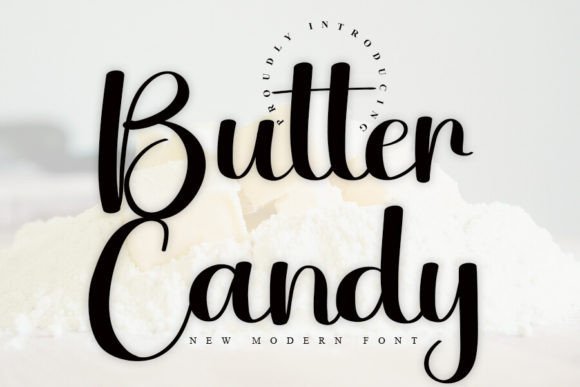
Discover the Sweet Allure of Butter Candy Font
Have you ever found yourself scribbling down ideas in the middle of a brainstorming session, and suddenly, the perfect phrase jumps out at you? That’s exactly what happened to us when we stumbled upon the Butter Candy Font. Its elegant curves and fluid lines made us swoon, and we just knew we had to share it with the world.
Butter Candy Font is a stunning, modern calligraphic font that’s perfect for adding a touch of sophistication to your designs. Whether you’re working on a branding project, creating wedding invitations, or crafting web graphics, this font will elevate your compositions to the next level. With its beautiful rhythm, you’ll be able to create gorgeous and classy designs that are sure to impress.
Key Features of “Butter Candy Font”
- Unique Characteristics: Features a unique blend of playful and elegant styles, perfect for creative and modern designs
Butter Candy Font Review
At first glance, Butter Candy Font seems like a whimsical and fun addition to any design project. ✨ The playful, handwritten feel of this font is perfect for creating a lighthearted atmosphere in branding, marketing materials, or even digital interfaces. I appreciate the way the font’s irregularities add a touch of personality to any text.
- Works well for: brand logos, packaging, social media graphics, and other design elements where a playful, handwritten feel is desired.
- ✨ The font’s unique characteristics make it stand out in a crowded market of similar fonts.
However, there are some limitations to consider. ⚠️ The font’s irregularities can also make it challenging to read, especially at smaller font sizes. Additionally, the font’s limited character set may require some additional design work to accommodate all necessary characters and symbols.
Overall, I think Butter Candy Font is a great choice for designers looking to add some whimsy and personality to their projects. While it may not be suitable for all types of projects, its unique charm and character make it a valuable addition to any design toolkit.
Butter Candy Font: A Practical Application Guide
Tips for Getting the Most Out of Butter Candy Font
Common Use Cases for Butter Candy Font
Alternatives to Butter Candy Font
Great Vibes Font is a beautiful, handwritten script font perfect for creating whimsical and elegant designs. It features a mix of cursive and calligraphic elements, making it ideal for use in wedding invitations, greeting cards, and other special occasion designs. Great Vibes Font is a more formal and sophisticated alternative to Butter Candy Font.
Comparison: Great Vibes Font has a more refined and polished look compared to Butter Candy Font, which has a more playful and casual feel.